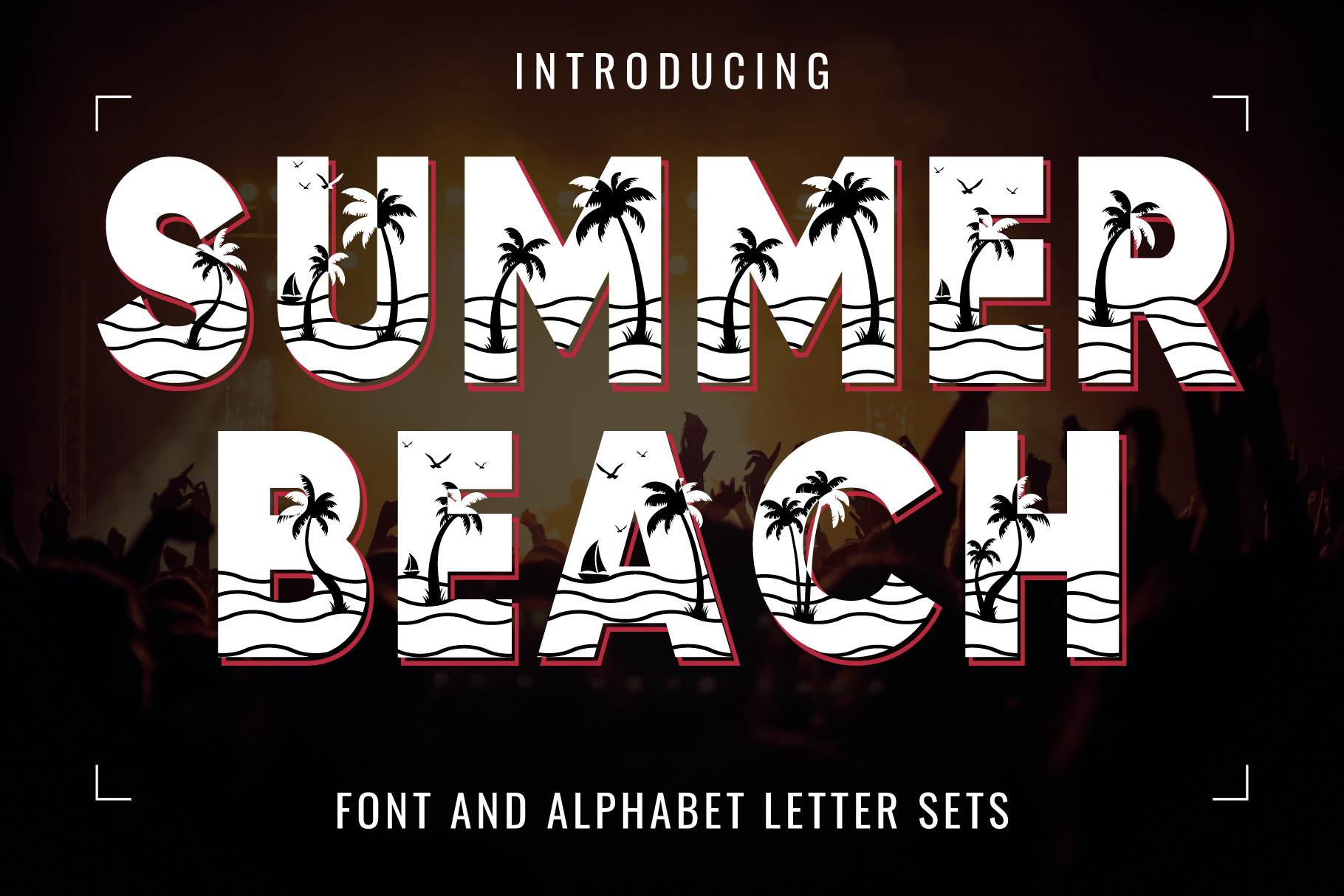
Summer Beach Font
Introducing “Summer Beach Font” – Each font letter is creatively designed to feature a charming palm tree motif, adding a tropical and beachy vibe to any project. The font is perfect for creating eye-catching designs for summer events, beach parties, vacation posters, and more. It’s ideal for anything ranging from t-shirts, book designs, restaurant menus, blog writing, greeting cards, stickers, or anything that needs a casual touch. Fall in love with its incredibly cool style, and use it to create lovely designs!
- 3 Color font sets.
- This entire font is capitalized.
- Only the English language is available.
- Letters: A B C D E F G H I J K L M N O P Q R S T U V W X Y Z.
- Numbers: 0 1 2 3 4 5 6 7 8 9.
- Excluding punctuation.